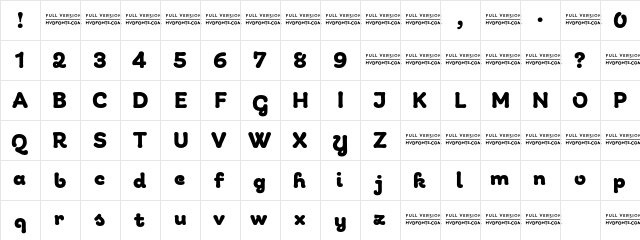
Giulia DEMO Bold
| Foundry | Hannes von Doehren |
| Designer | Hannes von Doehren |
Design Context for Giulia DEMO Typeface
Giulia DEMO offers clean, dependable letterforms without strong stylistic allegiance, making it a practical choice for designers who need flexibility. Its bold stroke weight gives it real presence on the page.